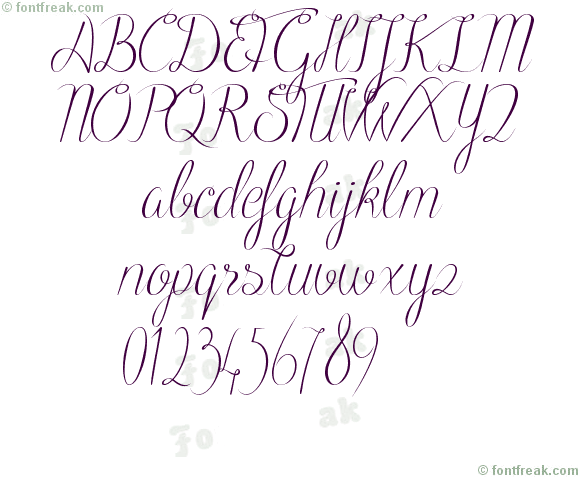
Black Olives
About Black Olives
Black Olives is a distinctive display font designed by Roland Huse. This font falls into the decorative category, exuding a unique charm that captivates viewers. Its artistic curves and elegant strokes make it an excellent choice for various creative projects. The font features a moderate stroke weight with graceful transitions that create a sense of rhythm and flow. The spacing is well-balanced, ensuring legibility while maintaining a stylish appearance.
Ideal use cases for the Black Olives font include wedding invitations, where its decorative flair adds a romantic touch, and movie posters, where its eye-catching design can draw attention to the title. It also works beautifully for restaurant menus, providing an inviting aesthetic that enhances the dining experience. Small business owners can leverage this font for logos and branding materials, making their products stand out in a crowded marketplace. Content creators will find that Black Olives adds a touch of elegance to social media graphics, making their posts more engaging.
What sets the Black Olives font apart is its ability to blend artistic beauty with practicality. Its distinctive style makes it a memorable choice for anyone looking to make a statement. Whether you are crafting a heartfelt invitation or designing a striking promotional piece, Black Olives provides the perfect balance of elegance and readability, ensuring that your message is communicated effectively.